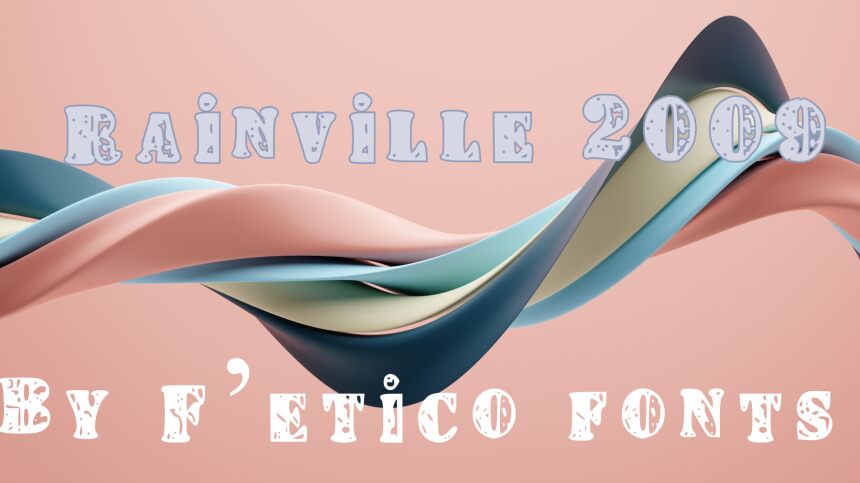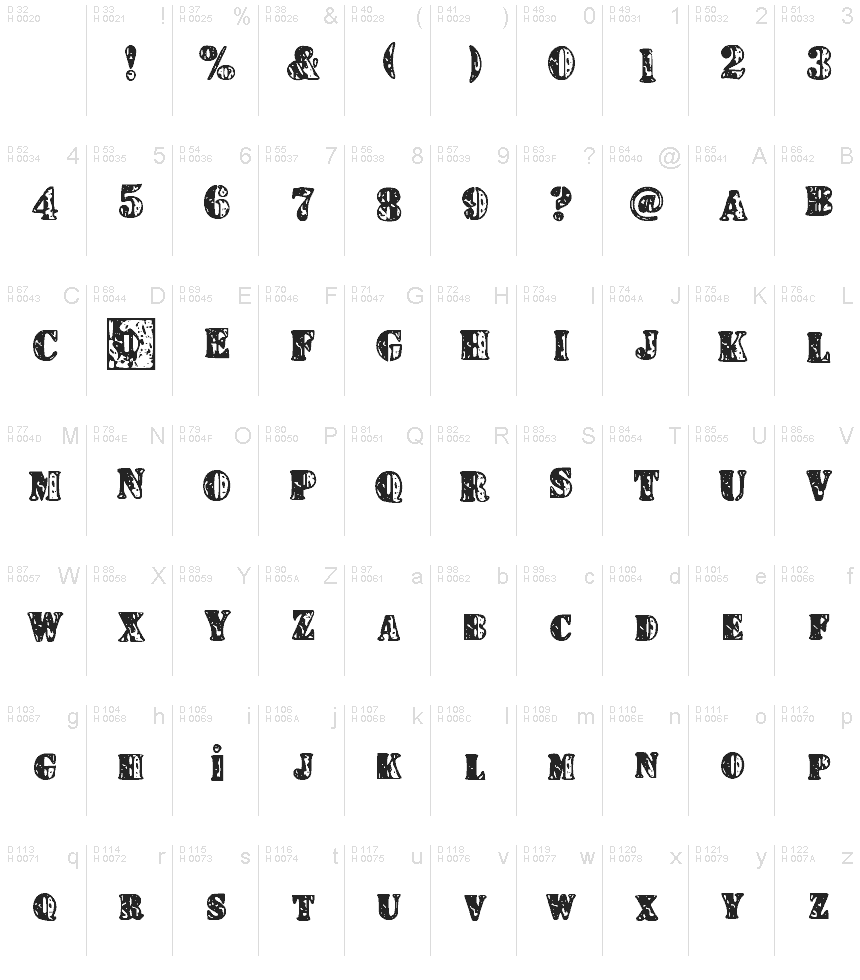
Rainville 2009 Regular
Rainville 2009 font is an eroded vintage display font with a bold appearance. Drama’s achieved within this typeface thanks to an expressive and artistic vibe that captures attention at first glance. Mixing a distressed texture, grotesque shapes, and ornamental detailing enhances its decorative appeal further.
This free font’s wide variety of applications includes album covers, music posters, video titles, magazine covers, fashion items or labels, book cover designs as well as tattoos. More options encompass menus for themed spirit bars and cafes or headings of horror content of all sorts whether entertainment-related or publishing-related.